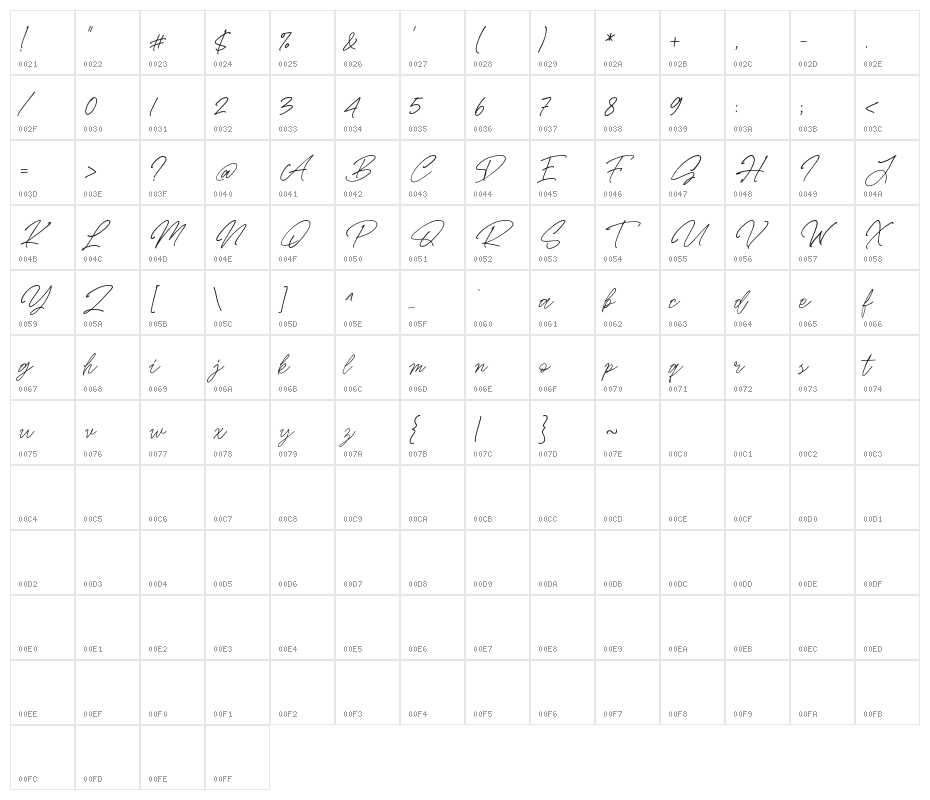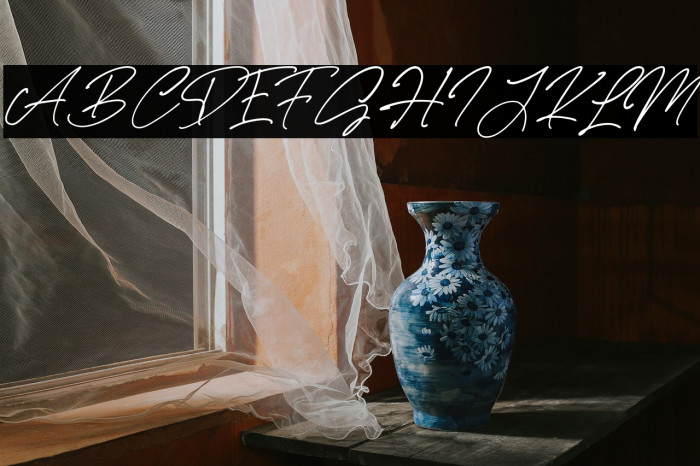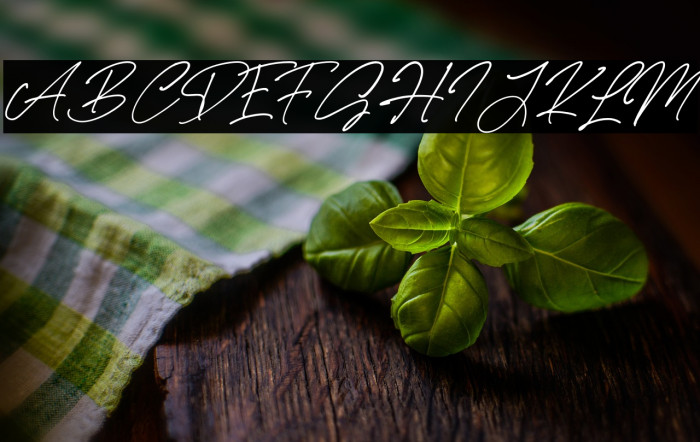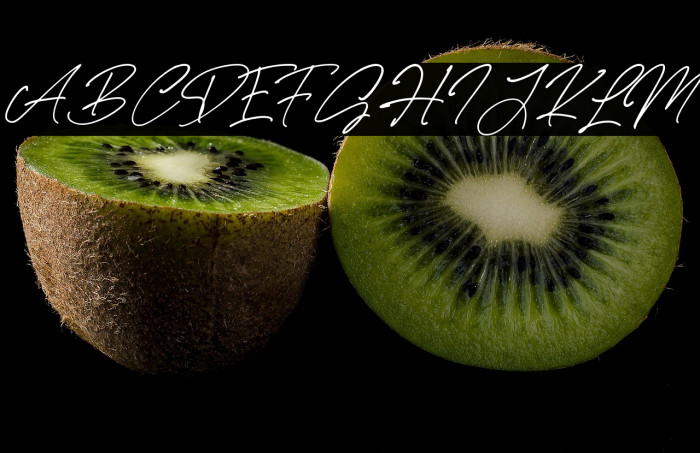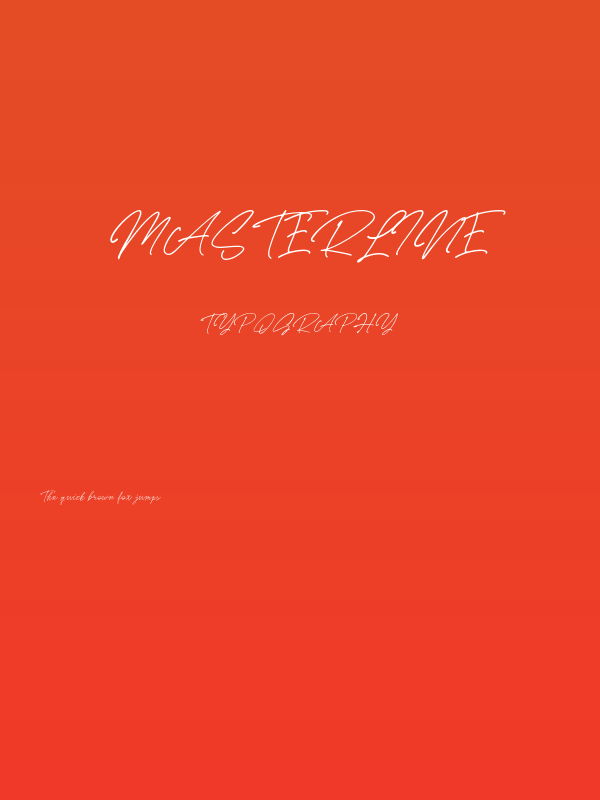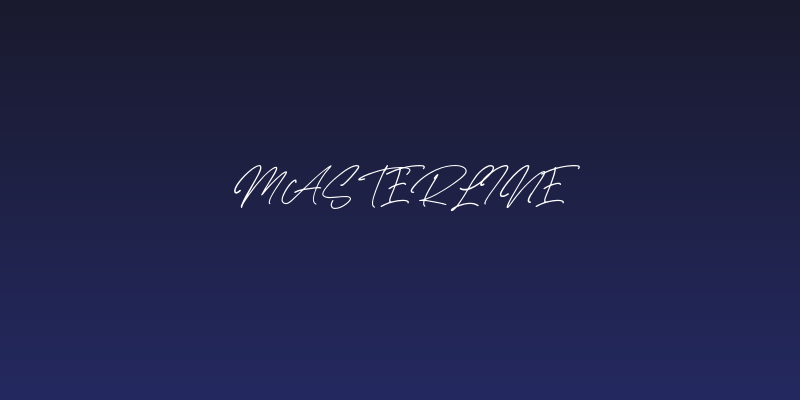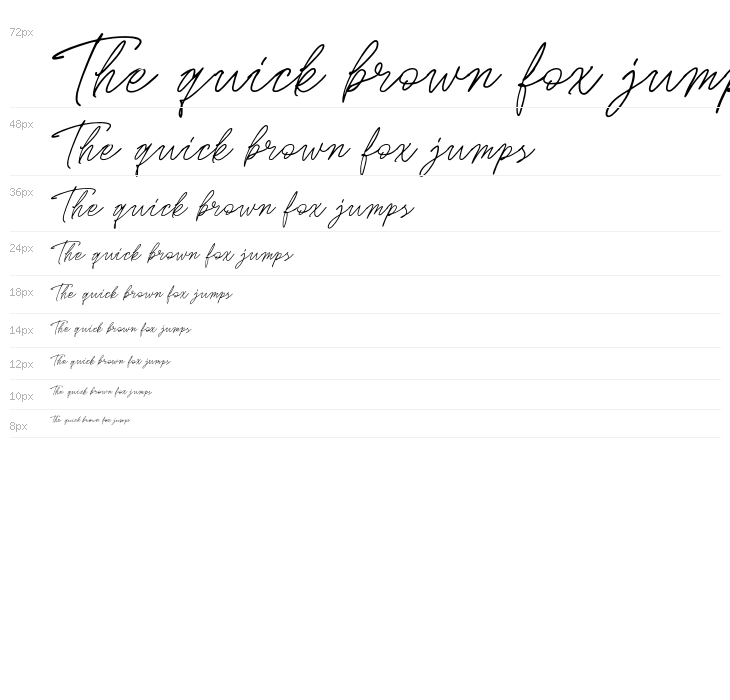
Masterline Font
Masterline Description
This font exhibits a flowing, cursive style that mimics elegant handwriting. The letters are interconnected, creating a seamless and fluid appearance. The uppercase characters are slightly larger and more ornate, while the lowercase letters maintain a consistent and graceful form. Numbers and special characters are integrated with the same cursive flair, ensuring a cohesive look across all text. The strokes are smooth and slightly varied in thickness, adding a touch of sophistication and charm. This font is ideal for projects that require a personal, handwritten touch, such as invitations, greeting cards, or branding materials.
| Overall Style | Elegant, Handwritten |
| Use Case | Logos, Invitations, Greeting Cards |
| Proposed Projects | Ideal for wedding invitations, personal branding, greeting cards, and elegant stationery. |